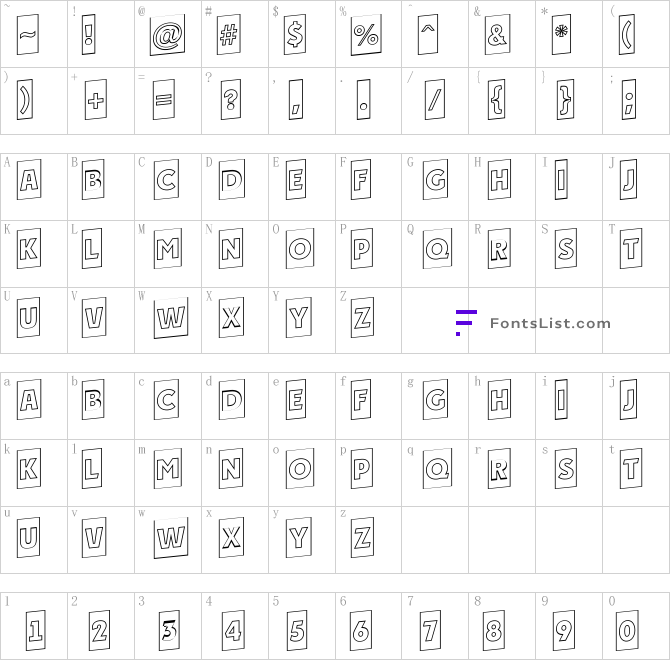
- Font Name:a_PlakatCmOtlUp
a_PlakatCmOtlUp.ttf is a very beautiful artistic font, a_PlakatCmOtlUp.ttf is widely used in the design and printing of various books and pictures,a_PlakatCmOtlUp.ttf has a strong visual impact,a_PlakatCmOtlUp.ttf is a commonly used font in newspapers, magazines and books, and is used in posters, e-commerce Poster design, store design, logo design, font design and other fields.a_PlakatCmOtlUp.